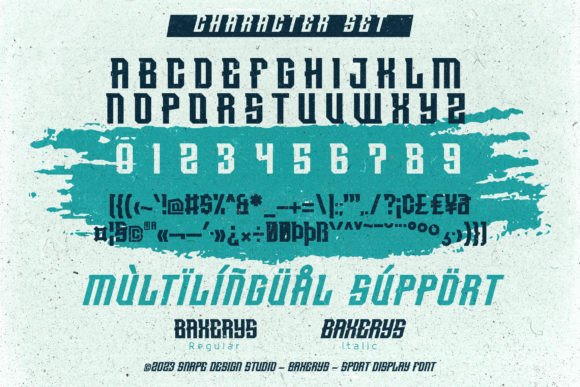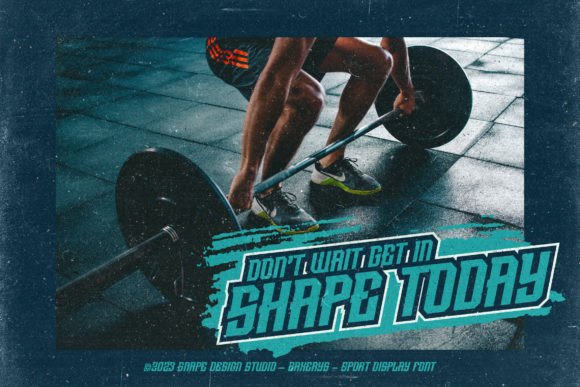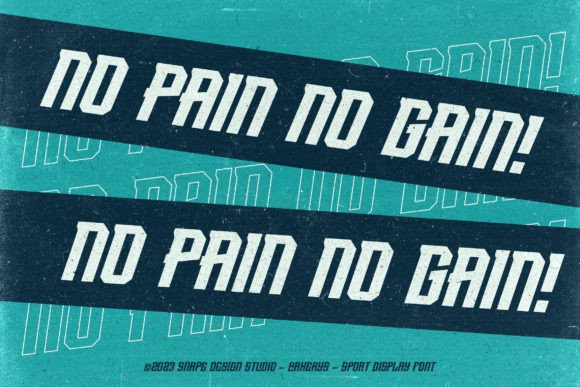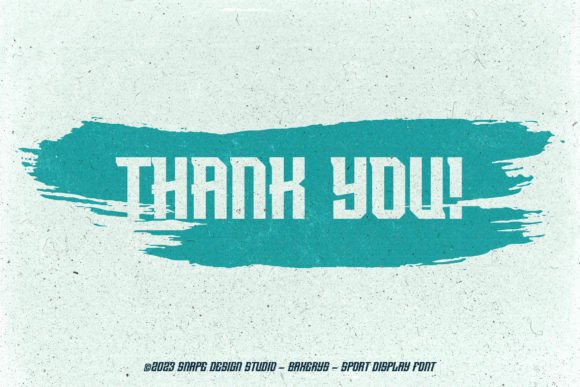
Baxerys Font: Elevate Your Sport-Inspired Designs with a Bold and Powerful Typeface
In the world of design, typography plays a crucial role in conveying the message and tone of a project. When it comes to creating sport-inspired designs, a font that exudes energy, power, and boldness is essential. This is where Baxerys Font comes into play – a sport font specifically designed to draw attention and add a vibrant touch to your creative projects.
What is Baxerys Font?
Baxerys is a sport font that embodies the spirit of competition and dynamism. Created to highlight any project that requires a bold feel, Baxerys is the perfect choice for designers looking to make a statement. Its powerful and energetic design makes it suitable for a wide range of applications, from sport designs to movies, posters, games, book covers, headlines, titles, and many more projects.
Key Features of Baxerys Font
- Bold and Powerful Design: Baxerys Font is designed to make a statement with its bold and powerful design. Its strong lines and curves make it perfect for creating eye-catching headlines and titles.
- Vibrant Touch: Baxerys adds a vibrant touch to your sport-inspired designs, making them stand out from the crowd.
- Versatile: Baxerys is a versatile font that can be used for a wide range of projects, from sport designs to movies, posters, games, and more.
- Easy to Read: Despite its bold design, Baxerys is easy to read, making it perfect for use in headlines, titles, and body text.
Why Choose Baxerys Font?
With so many fonts available, why choose Baxerys? Here are a few reasons why Baxerys Font stands out:
- Unique Design: Baxerys has a unique design that sets it apart from other sport fonts. Its bold and powerful design makes it perfect for creating eye-catching designs.
- High-Quality: Baxerys is a high-quality font that is designed to deliver exceptional results. Its clear and crisp design makes it perfect for use in a variety of projects.
Tips and Tricks for Using Baxerys Font
Here are a few tips and tricks for using Baxerys Font:
- Use it for Headlines and Titles: Baxerys is perfect for use in headlines and titles. Its bold design makes it easy to read and attention-grabbing.
- Experiment with Colors: Baxerys looks great in a variety of colors. Experiment with different colors to find the perfect look for your project.
- Pair it with Other Fonts: Baxerys can be paired with other fonts to create a unique and interesting design.
| Font Name | Baxerys Font |
| Author | snapedsgn |
Baxerys Font is a powerful and bold sport font that is perfect for designers looking to add a vibrant touch to their sport-inspired designs. With its unique design, high-quality, and ease of use, Baxerys is a great choice for a wide range of projects. Whether you’re creating a sport design, movie poster, or book cover, Baxerys Font is sure to make your project stand out.